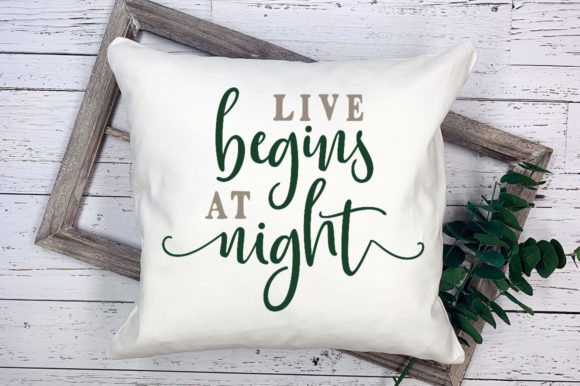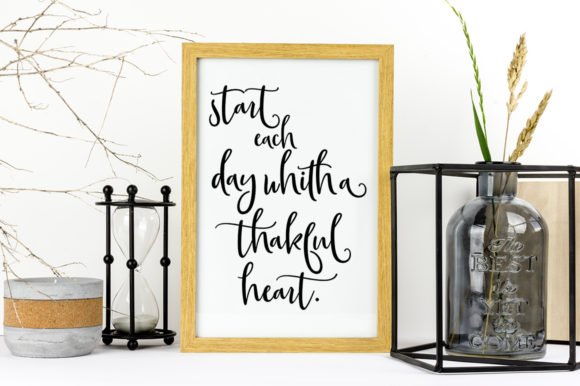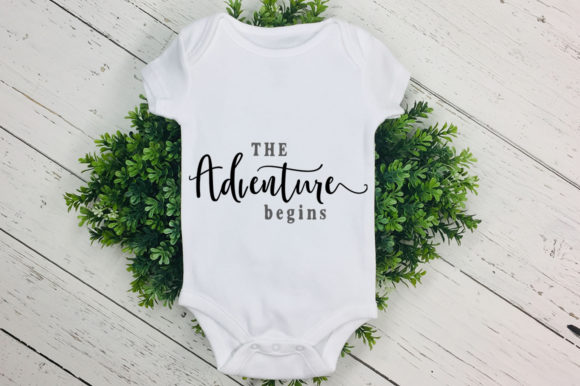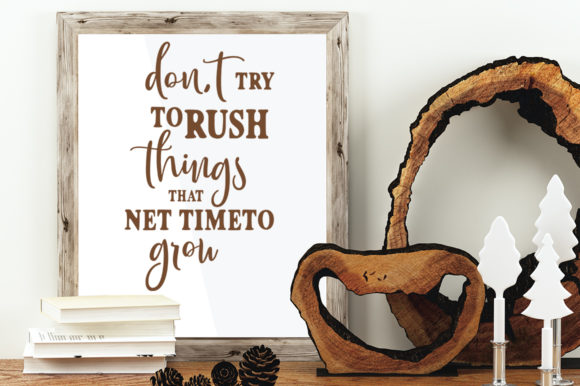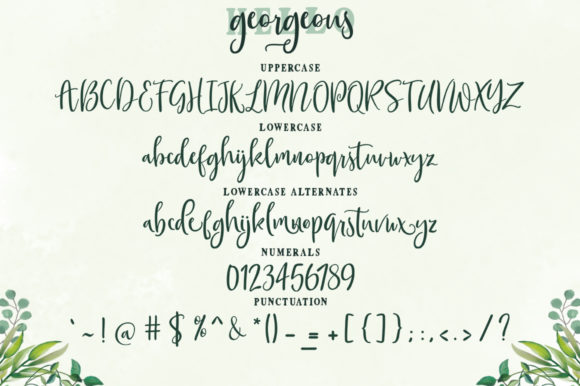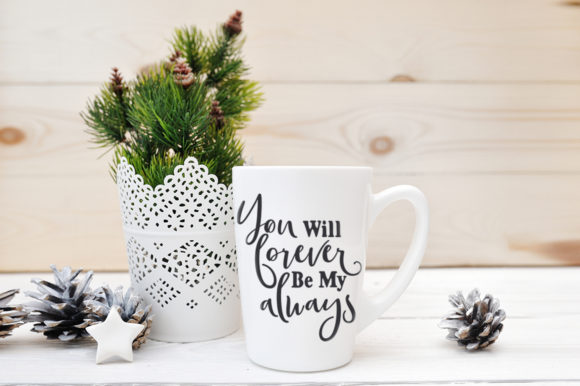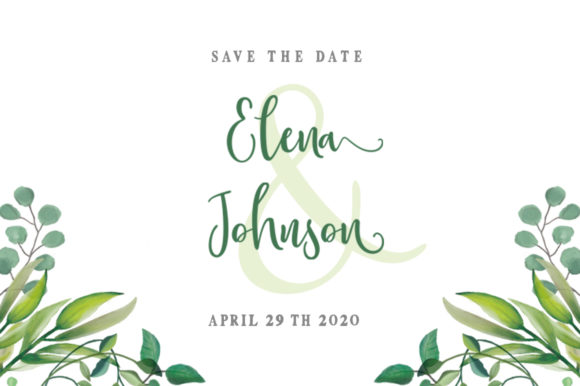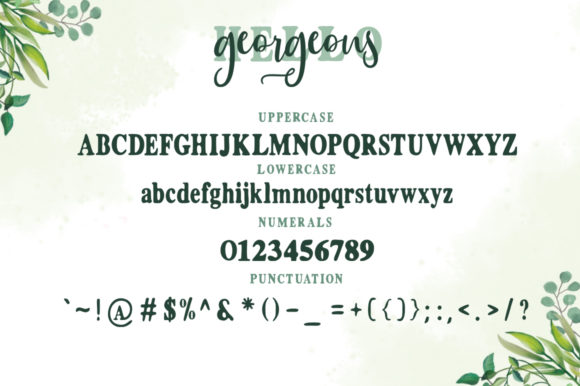
Gorgeous Duo Font
About Gorgeous Duo Font
As the name suggests, Gorgeous is a dazzling and vibrant script duo, elegantly fusing authenticity and style.